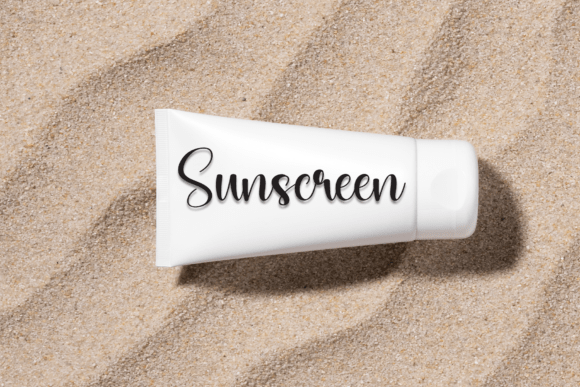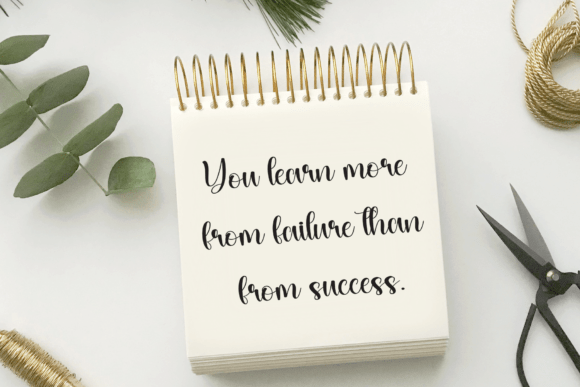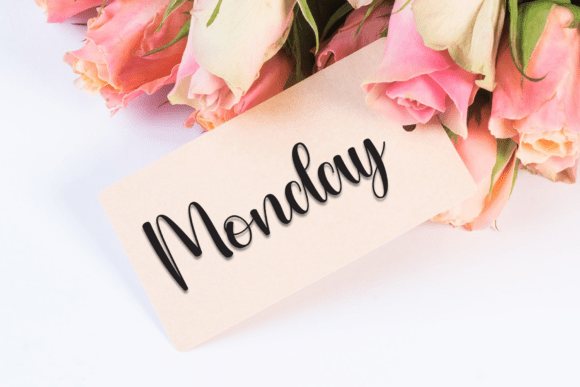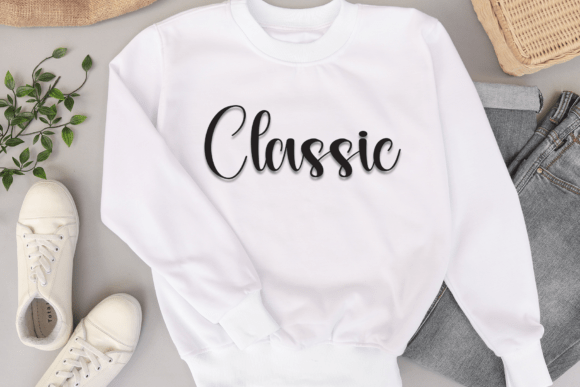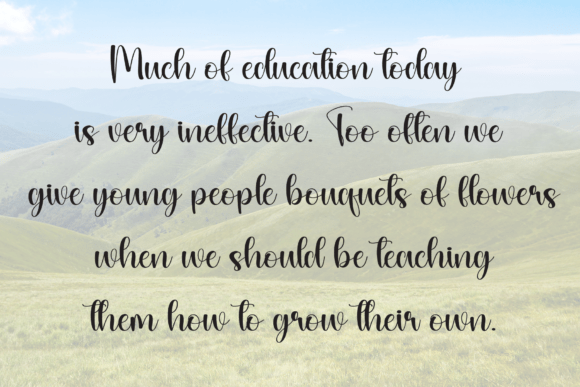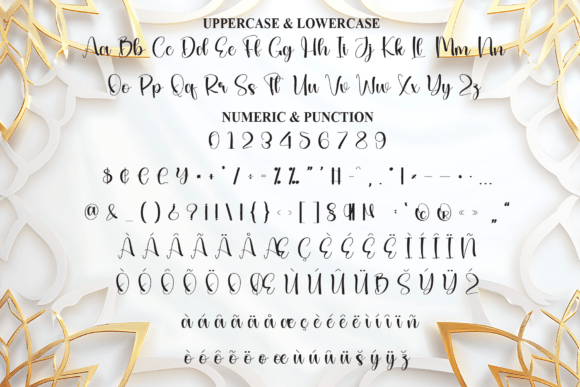
Elegant Font: Elevate Your Designs with Sophistication and Playfulness
In the world of typography, few fonts manage to strike a balance between elegance and playfulness. However, Elegant, a stylish handwritten script font, achieves just that. With its flowing curves and natural rhythm, Elegant adds a personal, charming touch to various design projects, including invitations, branding, and social media. In this article, we’ll explore the features and benefits of Elegant Font, and how it can bring warmth, sophistication, and creativity to your designs.
The Characteristics of Elegant Font
Elegant Font is a beautiful, handwritten script font that exudes sophistication and refinement. Its flowing curves and natural rhythm give it a unique, organic feel that’s perfect for designs that require a personal touch. The font’s elegant strokes and precise lettering make it ideal for a wide range of applications, from formal invitations to social media posts.
One of the standout features of Elegant Font is its ability to convey a sense of playfulness and whimsy. The font’s flowing curves and subtle imperfections give it a human touch that’s hard to replicate with more formal fonts. This makes Elegant Font perfect for designers and crafters who want to add a touch of personality to their work.
Uses of Elegant Font
Elegant Font is a versatile font that can be used in a variety of design projects. Here are some of the most popular uses of Elegant Font:
- Invitations: Elegant Font is perfect for formal and informal invitations, including wedding invitations, birthday party invitations, and baby shower invitations.
- Branding: The font’s elegant and sophisticated design makes it ideal for branding projects, including logos, business cards, and letterheads.
- Social Media: Elegant Font can add a touch of personality to social media posts, including Instagram captions, Facebook posts, and Twitter bios.
- Stationery: The font’s flowing curves and natural rhythm make it perfect for stationery designs, including notebooks, journals, and greeting cards.
Benefits of Using Elegant Font
There are several benefits to using Elegant Font in your design projects. Here are some of the most significant advantages:
- Unique and Memorable: Elegant Font’s unique design makes it stand out from more traditional fonts. Its flowing curves and natural rhythm give it a memorable quality that’s hard to forget.
- Versatile: Elegant Font can be used in a wide range of design projects, from formal invitations to social media posts.
- Easy to Read: Despite its elegant and cursive design, Elegant Font is easy to read, even at small sizes.
- Customizable: Elegant Font can be customized to fit your design needs. You can adjust the font size, color, and style to match your brand’s identity.
Tips for Using Elegant Font
Here are some tips for using Elegant Font in your design projects:
- Use it sparingly: Elegant Font is a statement font that should be used sparingly. Use it for headings, titles, or key phrases to add emphasis and personality to your design.
- Pair it with a sans-serif font: Pairing Elegant Font with a sans-serif font can create a beautiful contrast that adds visual interest to your design.
- Experiment with colors: Elegant Font looks great in a variety of colors. Experiment with different colors to find the one that best matches your brand’s identity.
Elegant Font is a beautiful, stylish handwritten script font that captures elegance and playfulness in every stroke. Its flowing curves and natural rhythm make it perfect for designs that require a personal touch. With its versatility, ease of use, and customizable design, Elegant Font is a great addition to any designer’s toolkit. Whether you’re designing invitations, branding materials, or social media posts, Elegant Font can bring warmth, sophistication, and creativity to your projects.